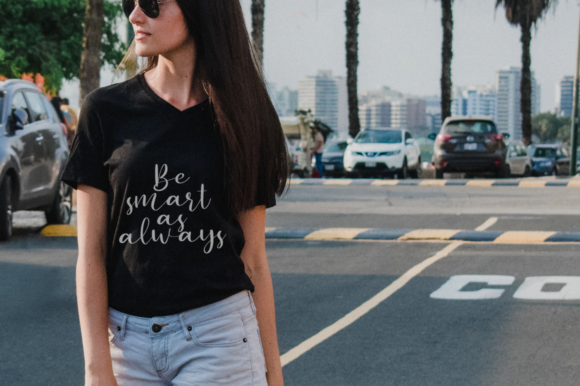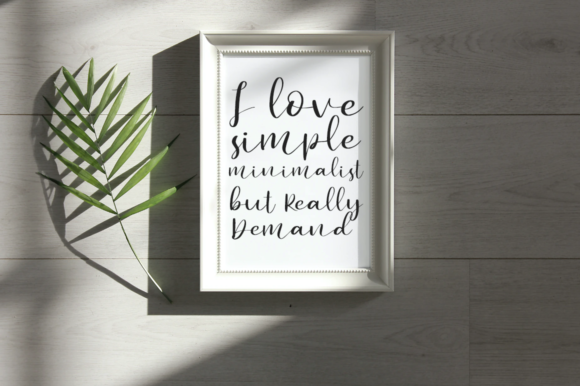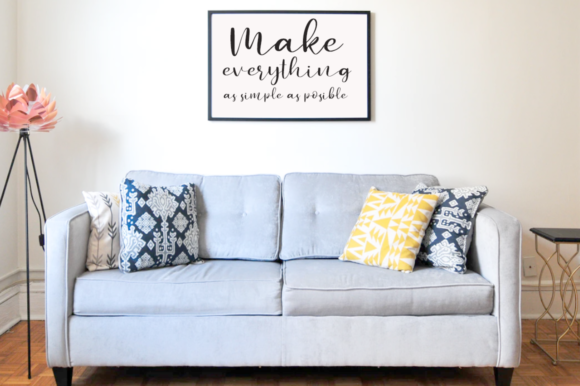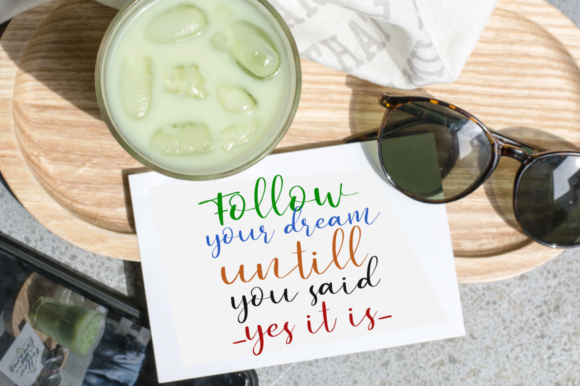
Secret Admire Font
Secret Admire is a cute and casual handwritten font with an incredibly friendly feel. Whether you’re looking for fonts for Instagram or calligraphy scripts for DIY projects, this font will turn any creative idea into a true piece of art!